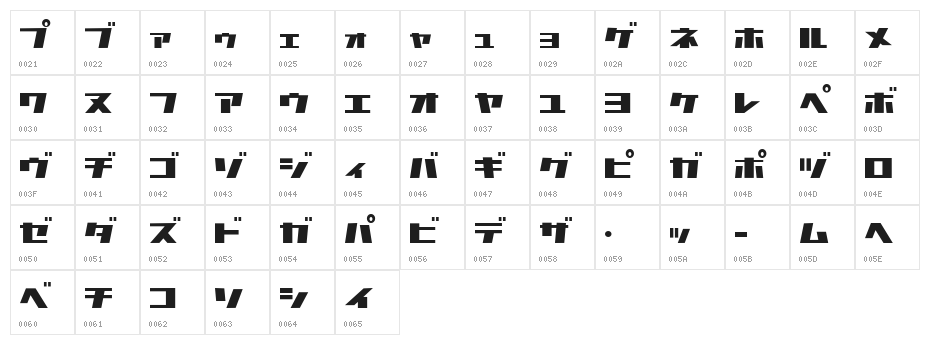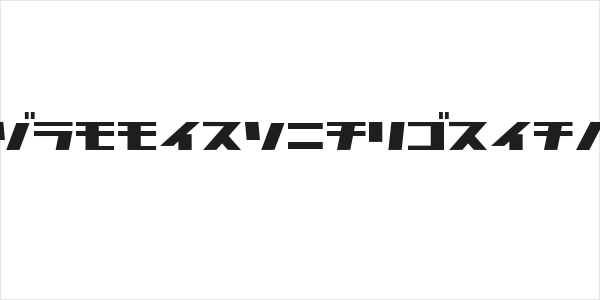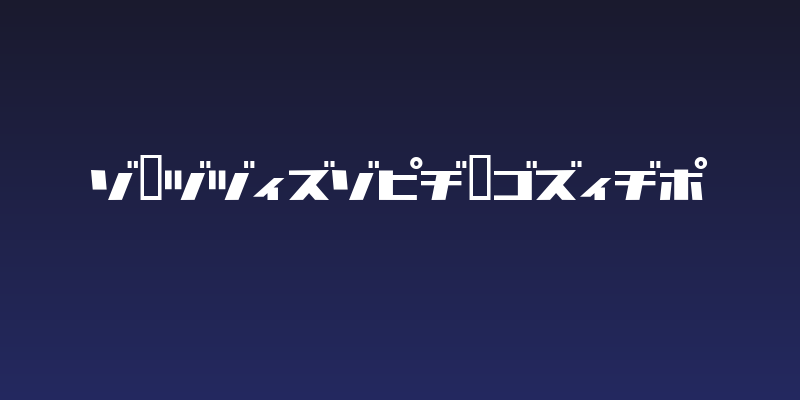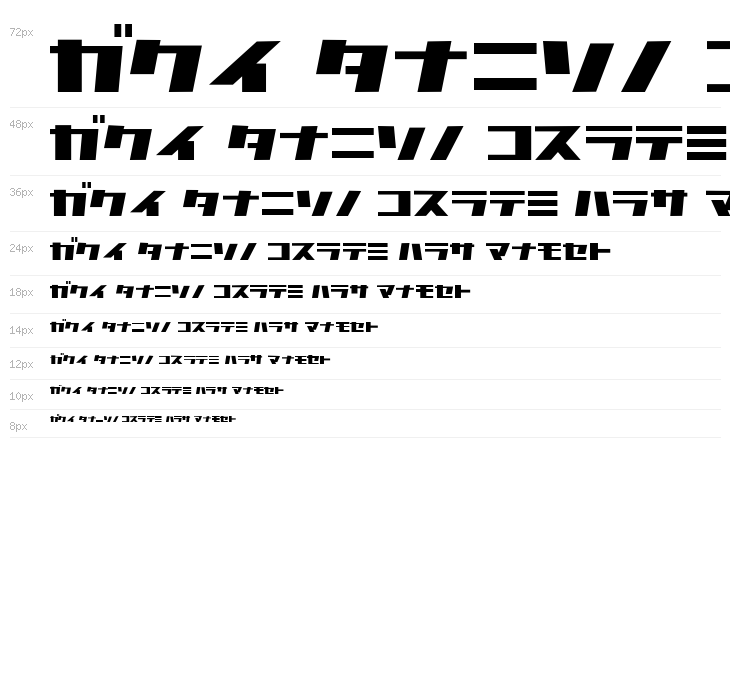
CommercialBreak Font
CommercialBreak Description
This font features bold, geometric characters with a strong presence, making it ideal for attention-grabbing designs. The characters are uniformly thick, with sharp angles and a blocky appearance that conveys a sense of modernity and strength. The uniformity in stroke width across all characters gives it a cohesive and structured look. The font's design is reminiscent of digital or futuristic styles, suitable for projects that require a bold and impactful visual statement.
| Proposed Projects | Ideal for headlines, posters, branding, and any design that requires a strong visual impact. |